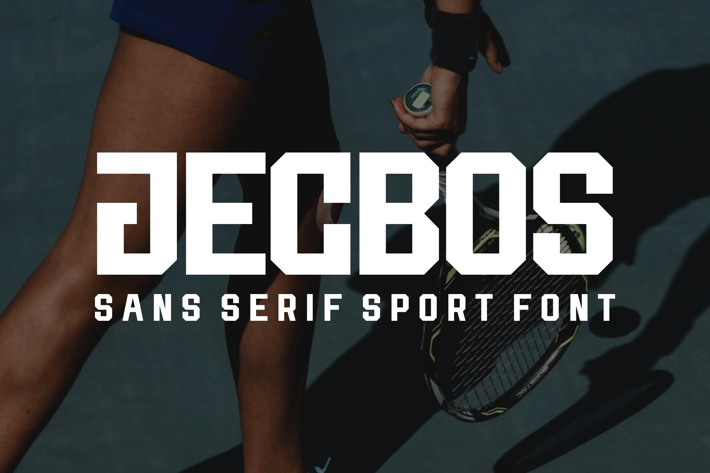
Jecbos Font
Introducing our new product Jecbos Font - Modern Font
Jecbos Font - Modern Font is a bold and authentic display font. The font is suitable for any branding project like logo, esport, and many more. outstanding in a wide range of contexts.